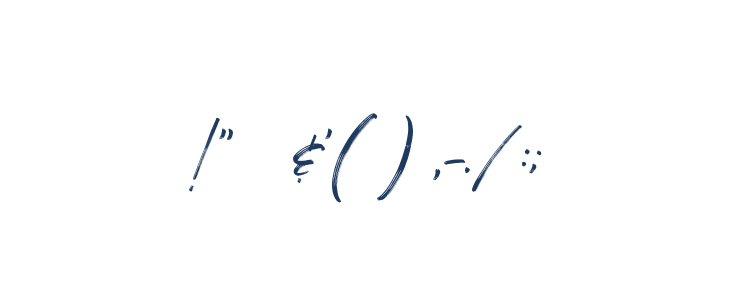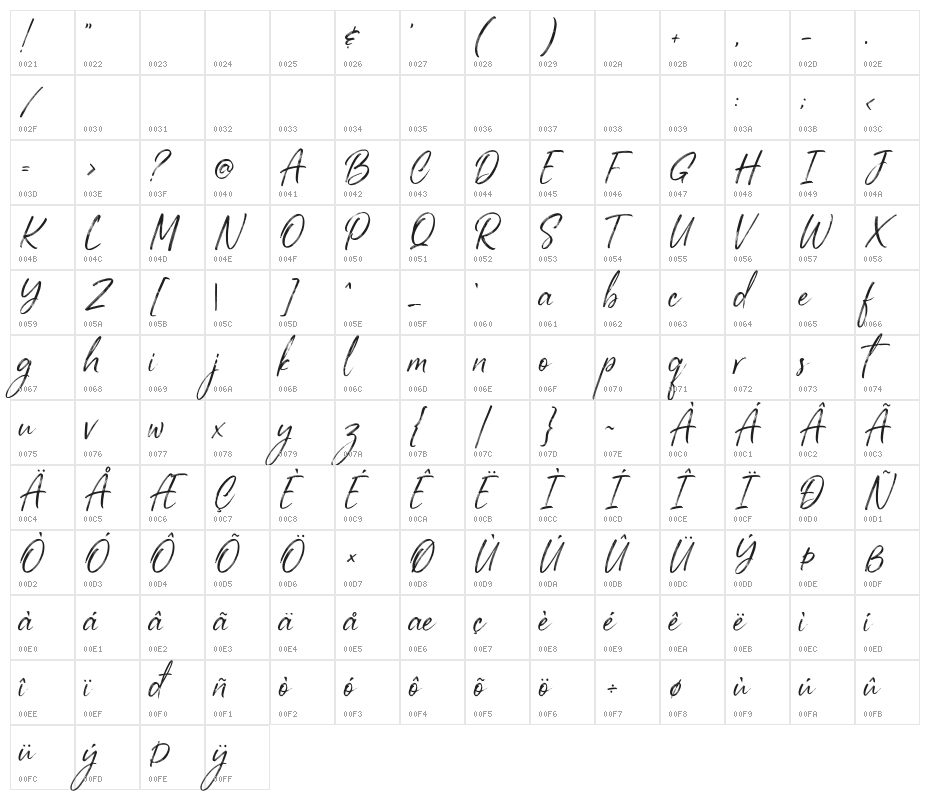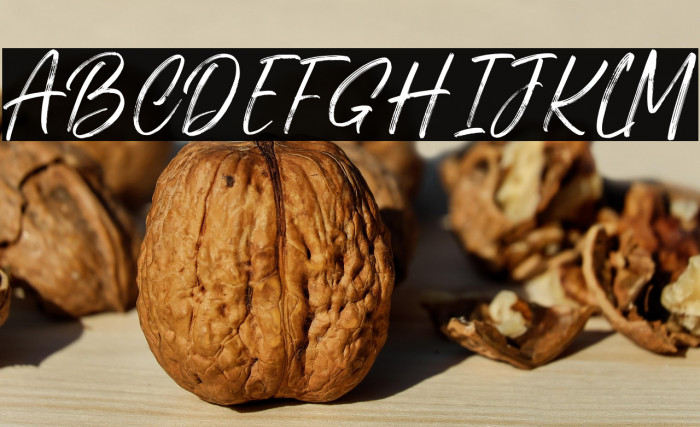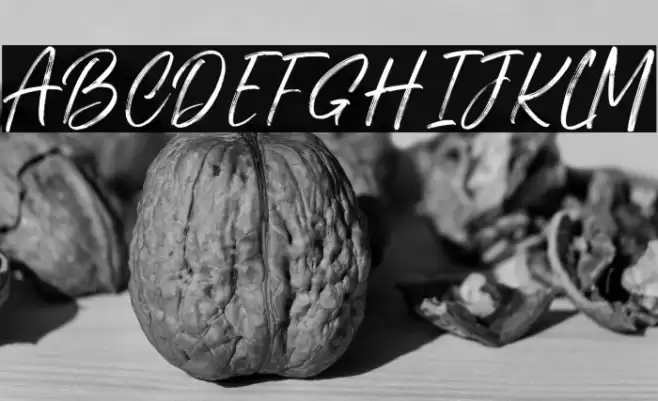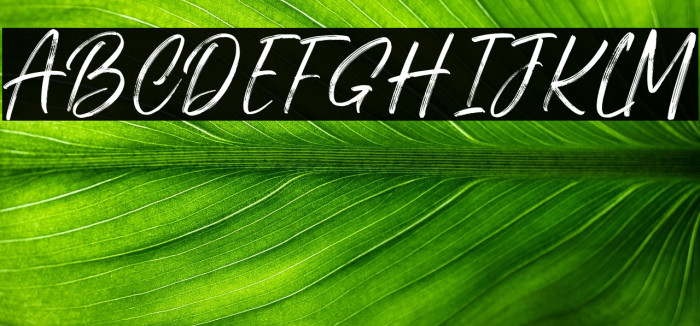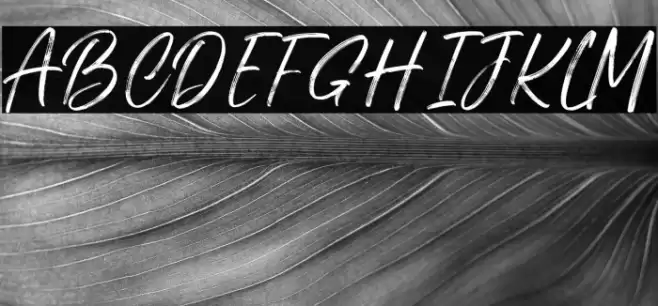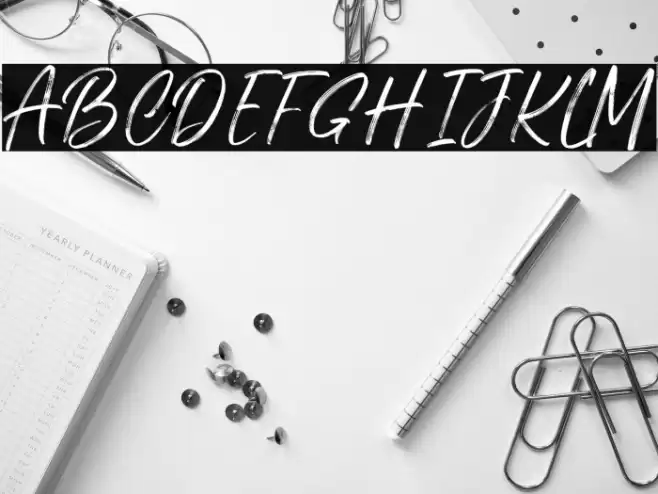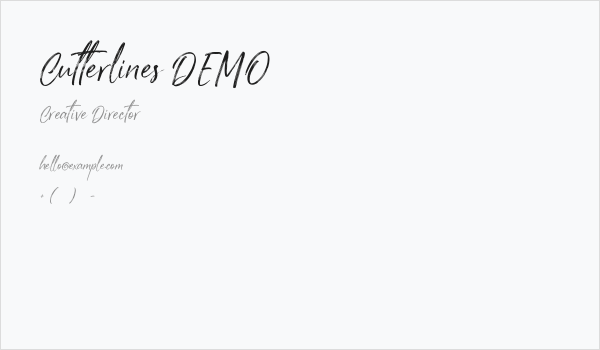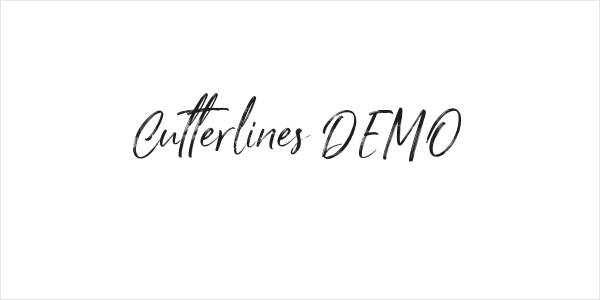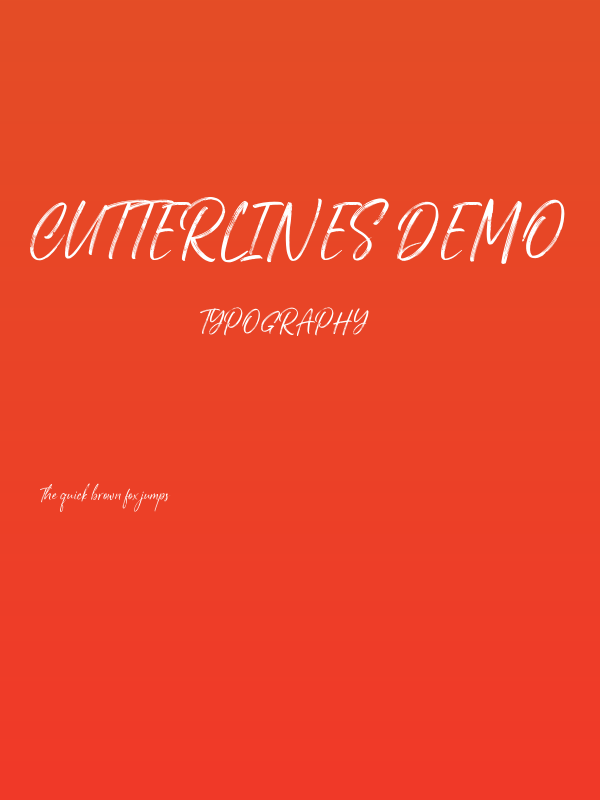
Cutterlines DEMO Font
Cutterlines DEMO Description
This font features a dynamic and expressive handwritten style, characterized by its fluid strokes and artistic flair. The uppercase letters are bold and slightly slanted, giving a sense of movement and energy. The lowercase letters maintain a consistent flow, with some letters featuring unique loops and curves that add to the font's charm. The numbers and special characters are designed with the same attention to detail, ensuring a cohesive look across all elements. The brush-like texture of the strokes adds a tactile quality, making it ideal for projects that require a personal touch.